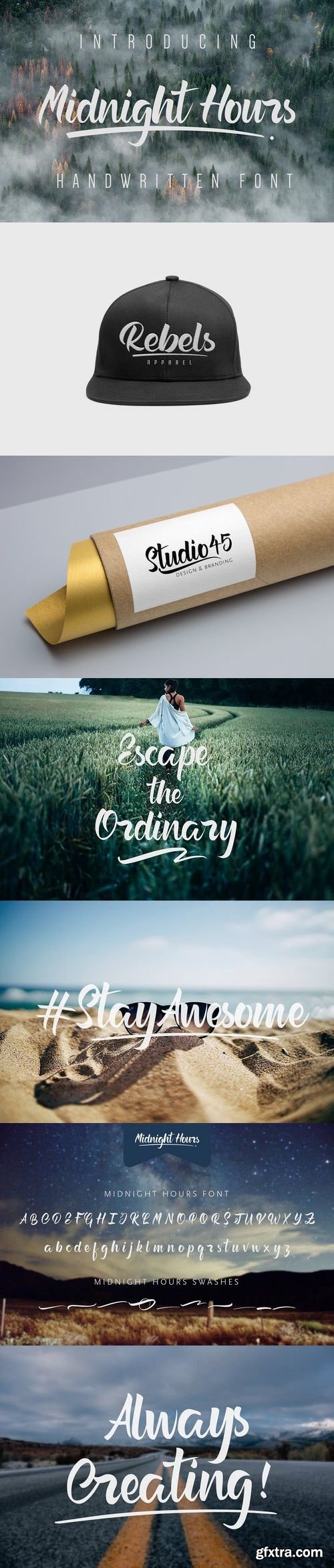
Introducing: Midnight Hours, a hand written font. Are you looking for a font for branding, product packaging, downloadable prints, t-shirt designs or perhaps just for some home decor? People, look no further! Crispy thick and thin strokes are just some of the awesome characteristics of Midnight Hours. What is it included? Purchasing this font you will receive two separate files: